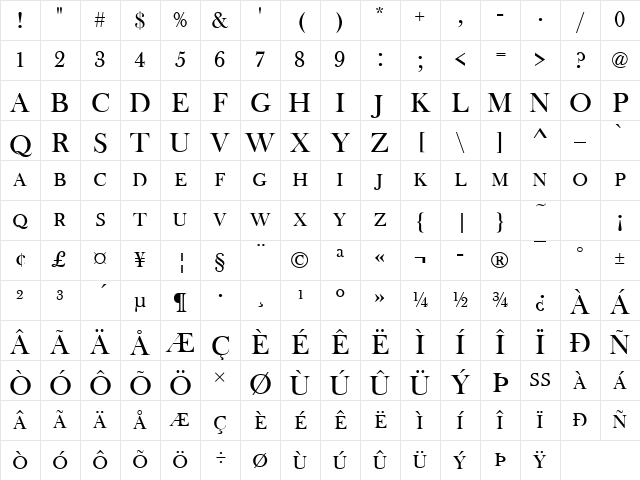
BaskervilleOldFacDCD Regular
Complete BaskervilleOldFacDCD Regular glyph index. Displaying only characters natively supported by BaskervilleOldFacDCD Regular font.
Design Context for BaskervilleOldFacDCD
BaskervilleOldFacDCD is a composed and adaptable typeface that performs quietly and consistently across a wide range of design contexts.